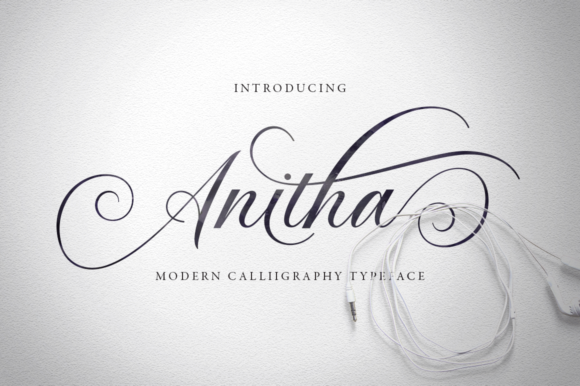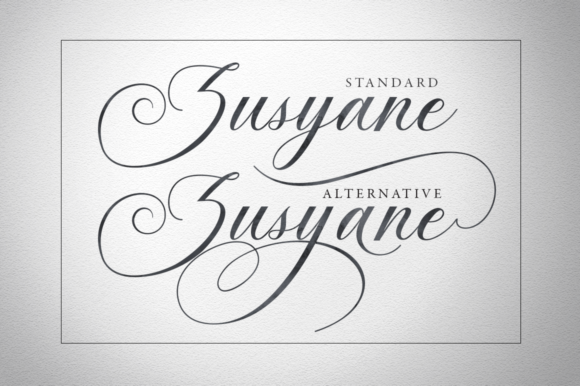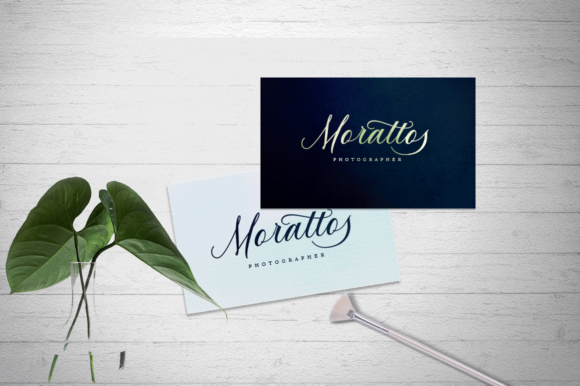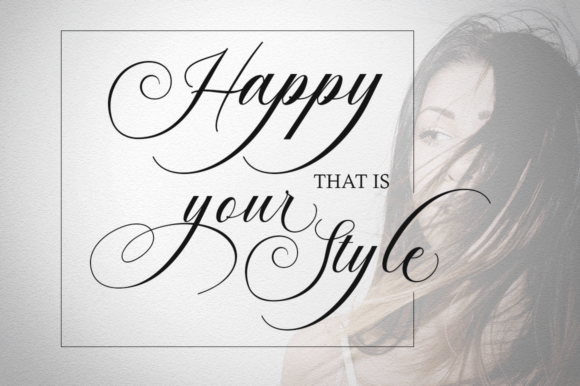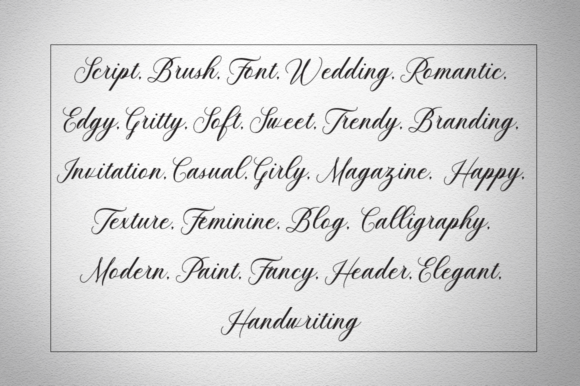
Anitha Font
About Anitha Font
Anitha is inspired by classic typography and brings its own unique style to any design project. This fantastic handwritten font is best suited for headlines of all sizes, as well as for blocks of text that have both maximum and minimum variations. Whether it’s for web, print, moving images or anything else – Anitha will look spectacular.